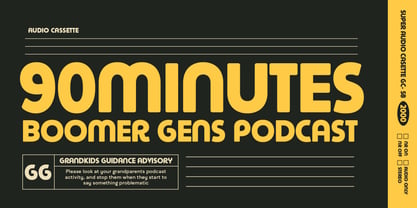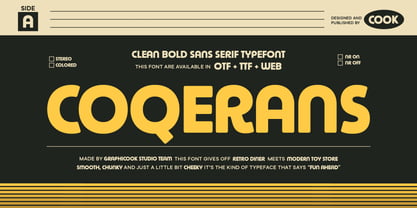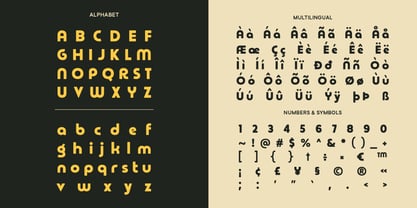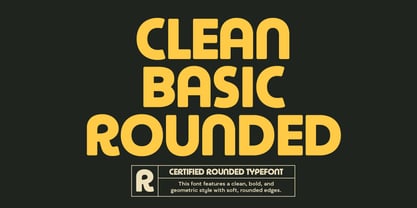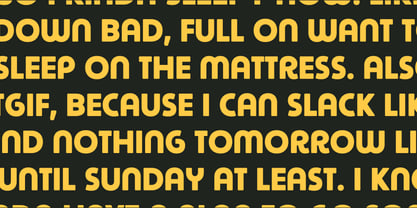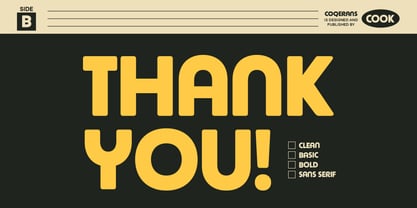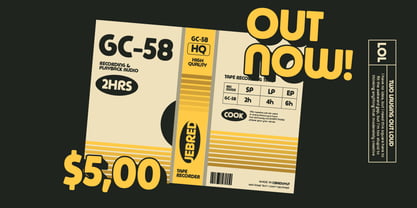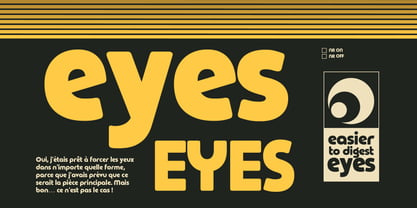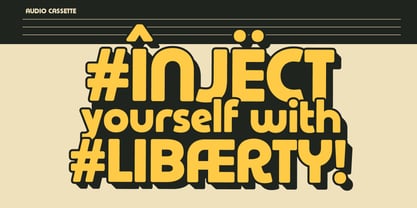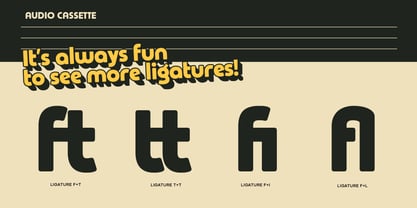
Cook Coqerans
by Graphicook Studio
The Cook Coqerans Font Family was designed by Gumilar Febriansyah and published by Graphicook Studio. Cook Coqerans contains 1 styles. More about this family
Coqerans is a sans-serif font featuring clean, smooth letterforms with retro influences and a playful modern twist. It’s a great choice for posters, music-themed visuals, and retro-inspired designs. It is perfect for headlines, logotypes, magazines, packaging, quotes, movies, games, cover albums, book covers, and flyers, it's a perfect solution for creating eye-catching designs that stand out in any context.
Designers: Gumilar Febriansyah
Foundry: Graphicook Studio